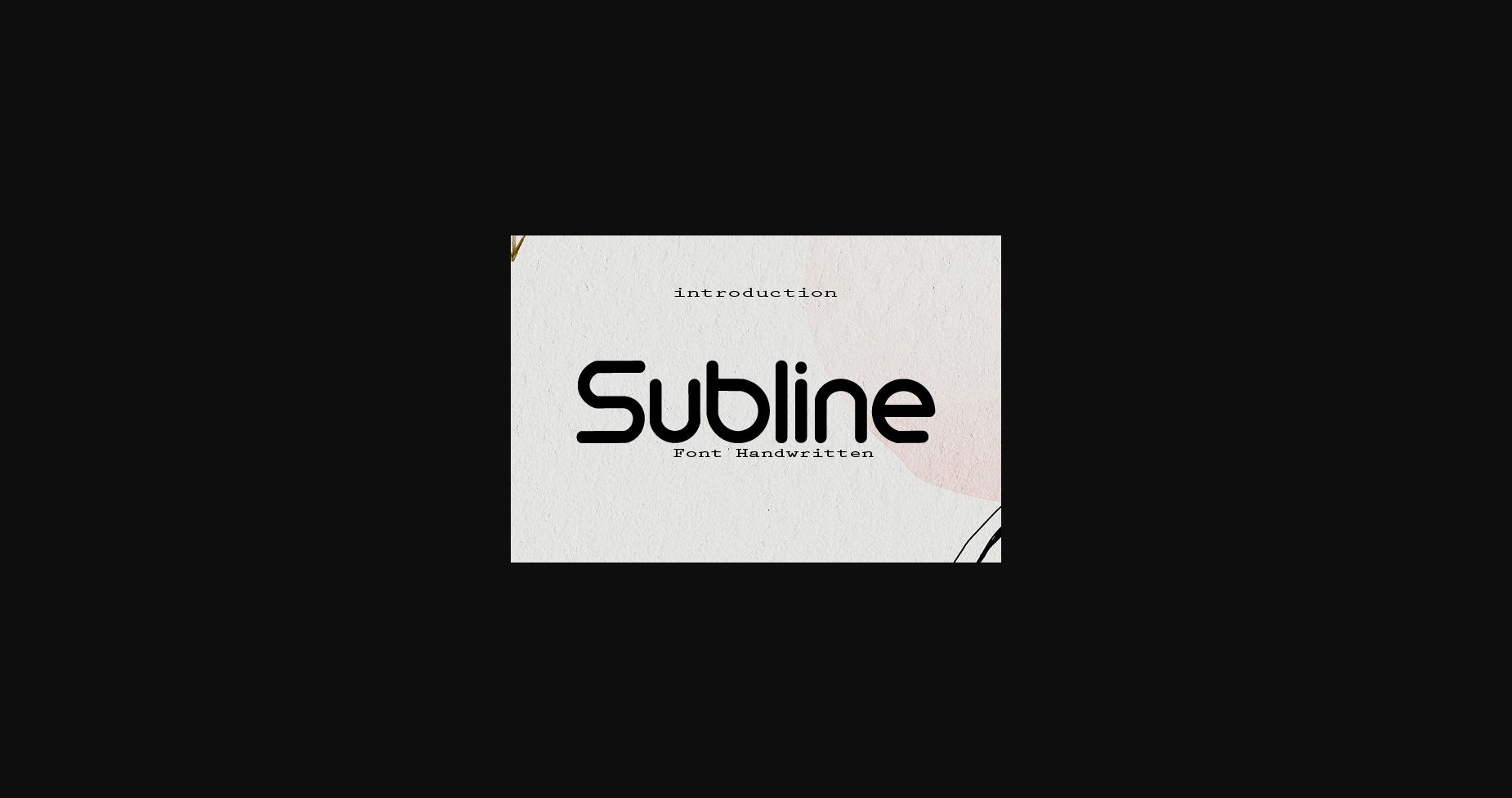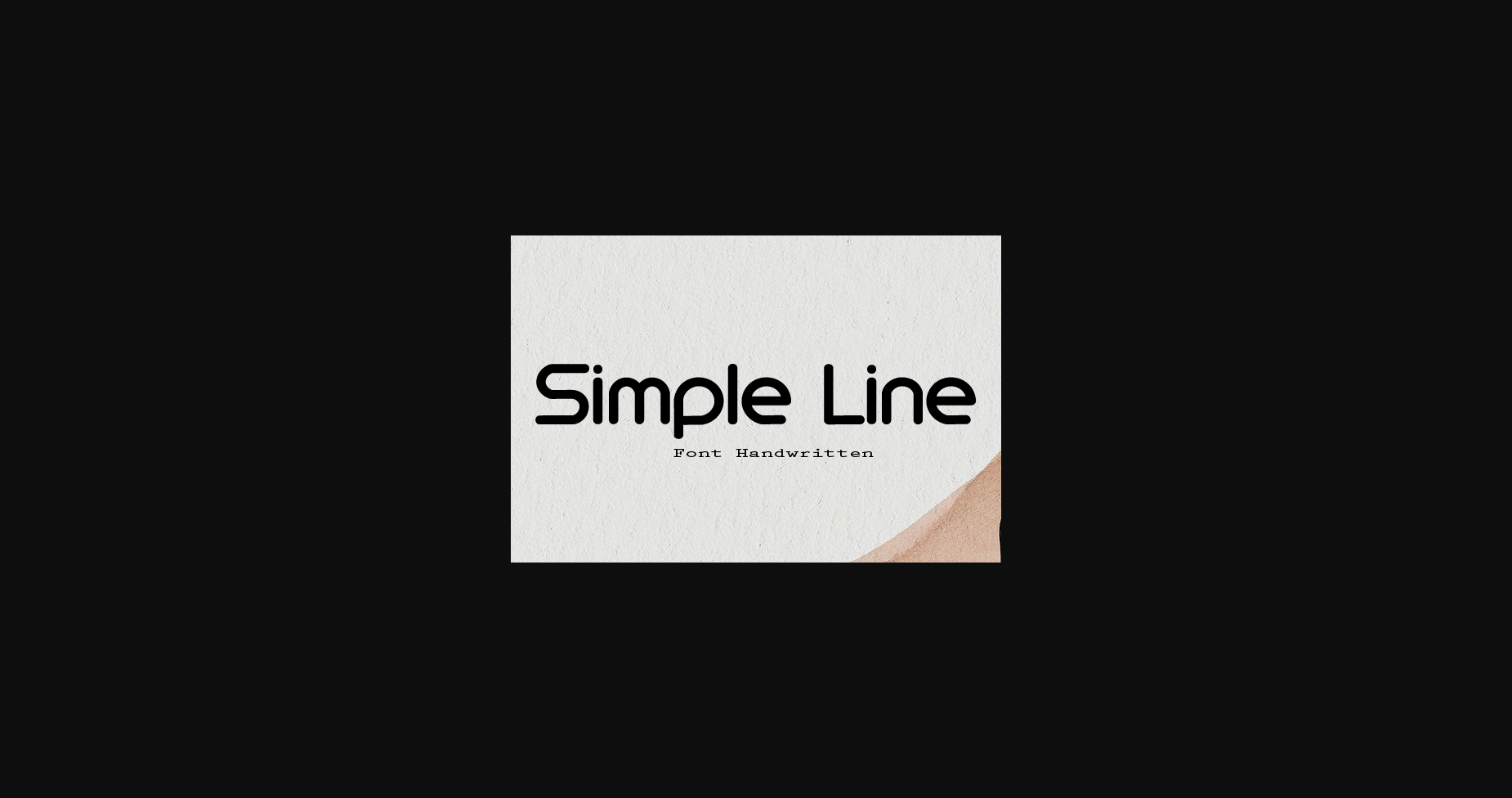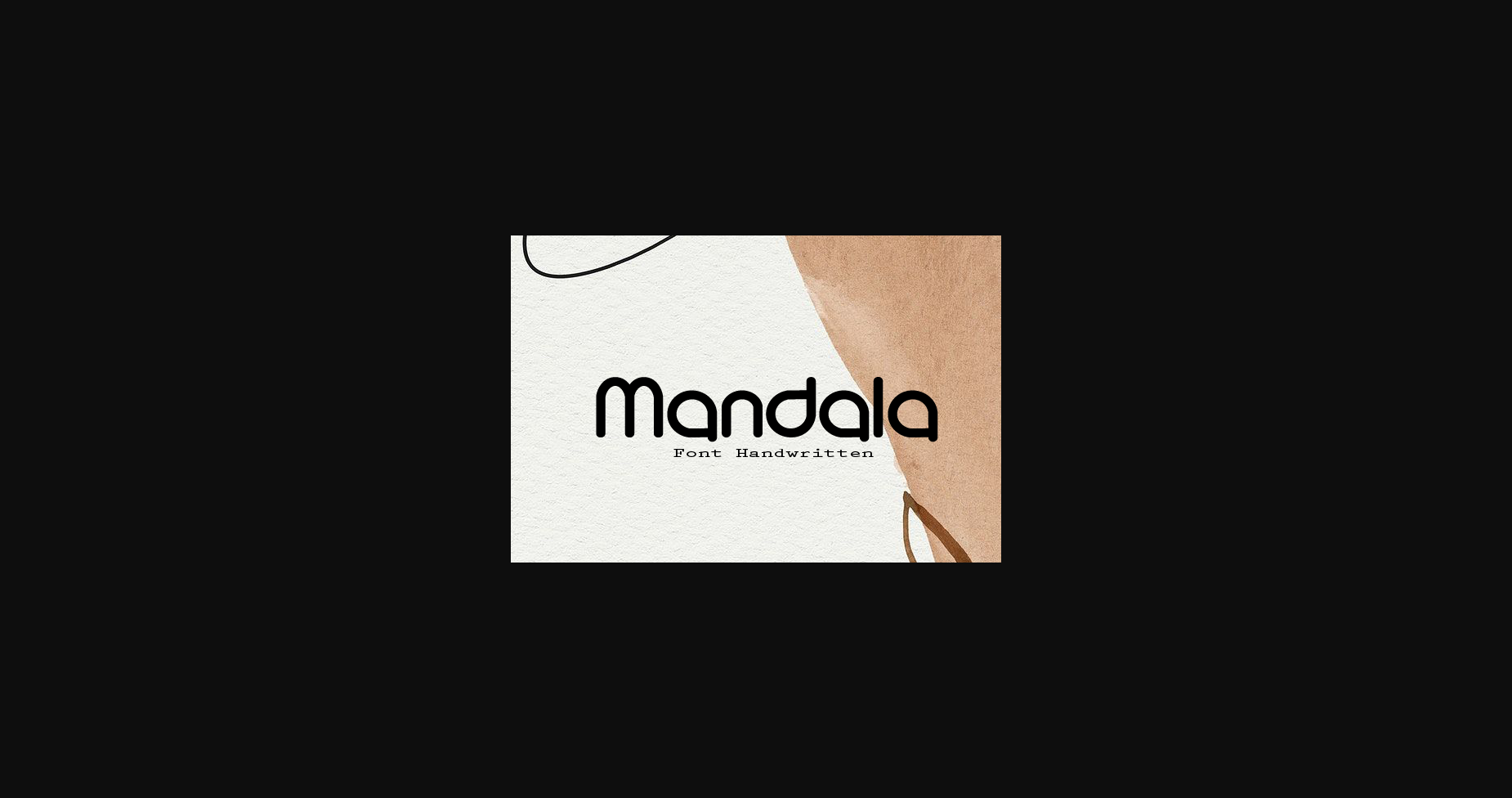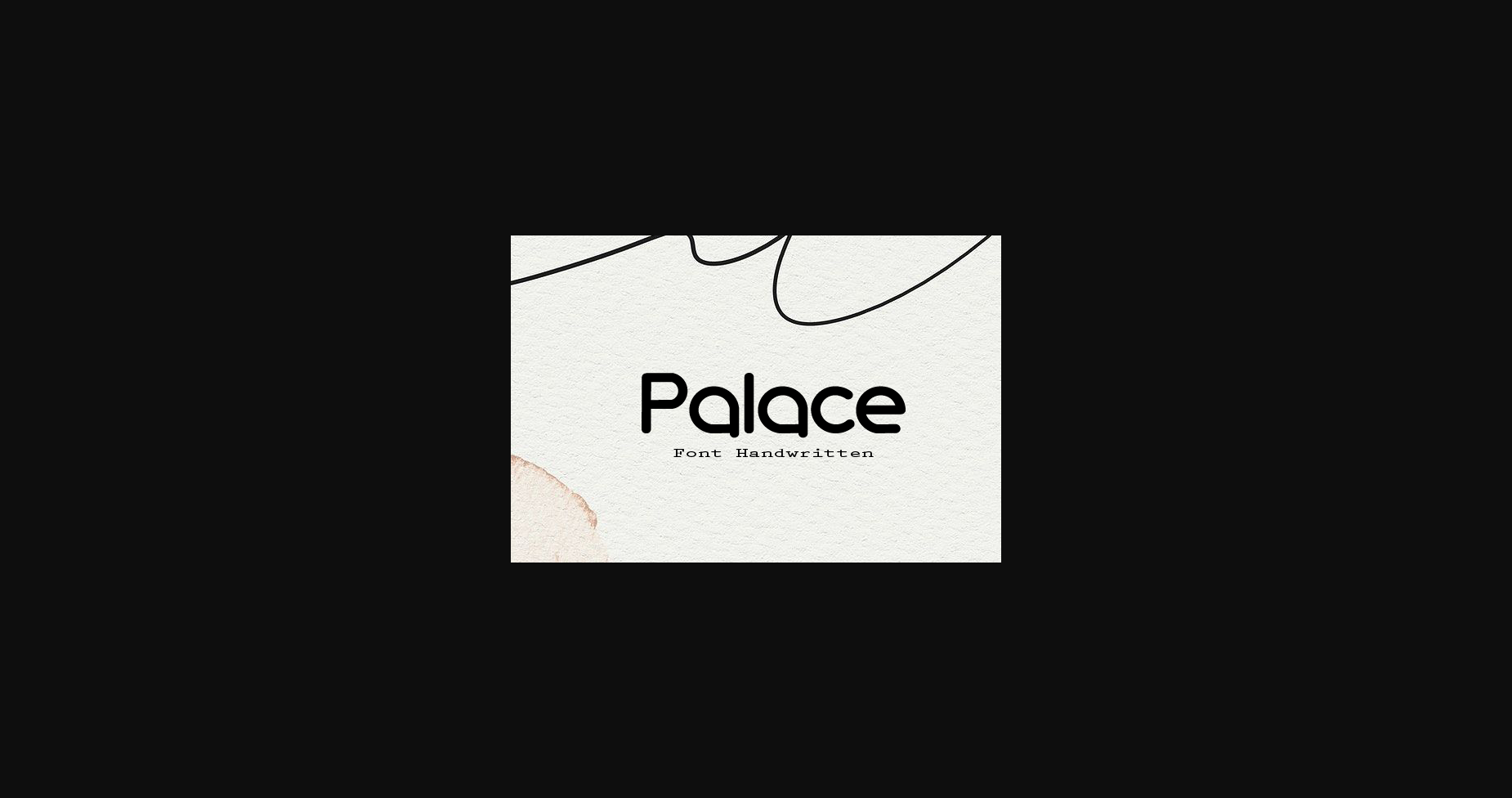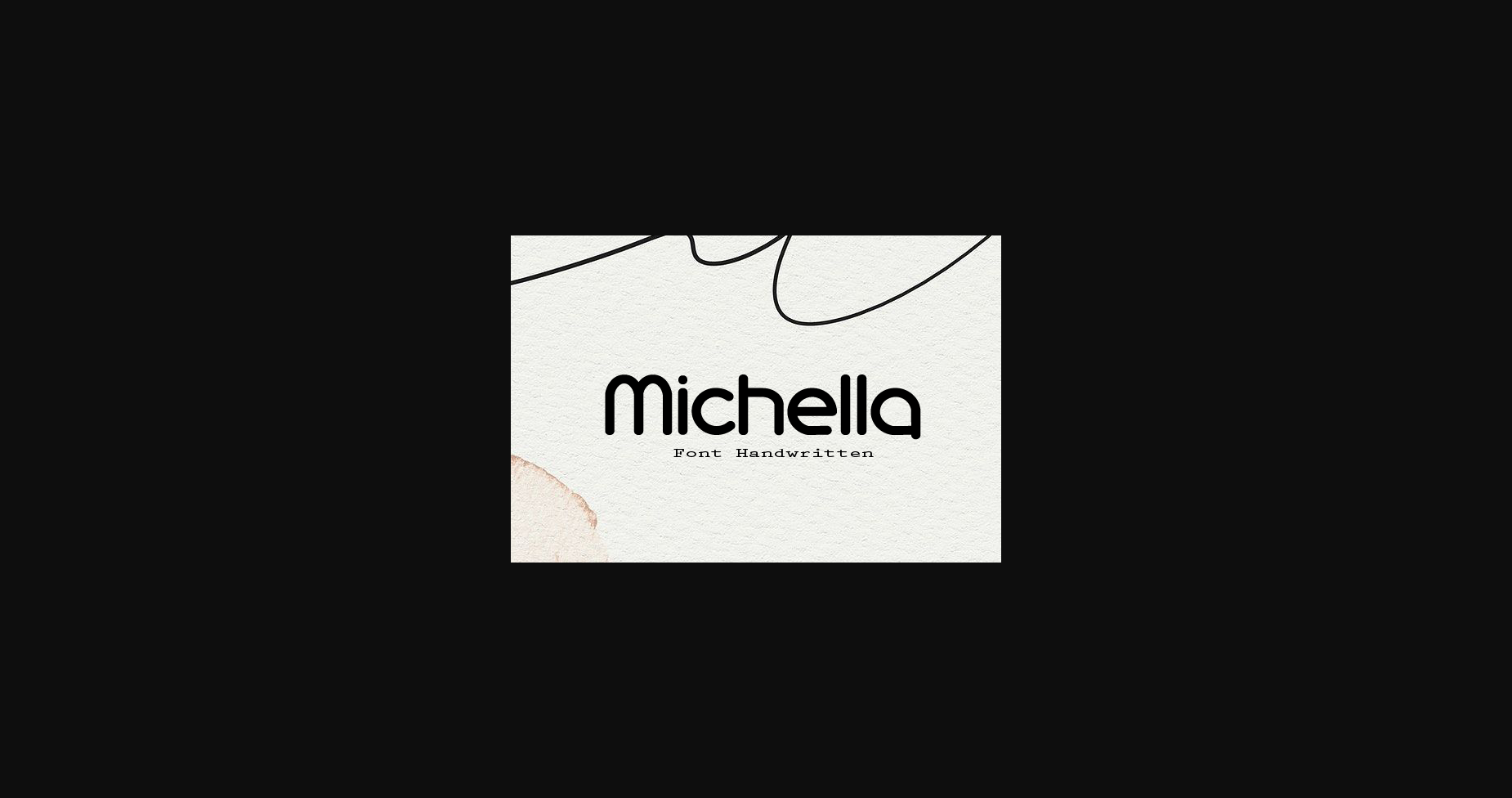
HomeSans Serif FontsSubline Font Sans Serif Fonts Subline Font FacebookXPinterestWhatsApp 1 of 7 ... Subline Font Poster 2... Subline Font Poster 3... Subline Font Poster 4... Subline Font Poster 5... Subline Font Poster 6... Subline Font Poster 7... About Subline Font Subline is a simple and modern sans serif font. This clean font has a wide spectrum of applications ranging from greeting cards to headlines and is guaranteed to add a cool feel to your next project. DOWNLOAD NOW People also explored Allacarte Font Daylight Font Buny Huny Font Orange Font Red Ribbory Font Bame Font Nian Chinese Monogram Font Simple Font Derby Font 479 0 TagsSublineSubline Font Previous articleStarlin FontNext articleEaster Bunny Font LEAVE A REPLY Cancel reply Comment: Please enter your comment! Name:* Please enter your name here Email:* You have entered an incorrect email address! Please enter your email address here Website: Save my name, email, and website in this browser for the next time I comment. Personal Use Free Quickline Personal Use Free Read more about this font Vilsuve Personal Use Free Read more about this font Colombia Personal Use Free Read more about this font BD Lofi Personal Use Free Read more about this font BLOG How to Install and Use Fonts on Windows, macOS, and Web Projects How to Install and Use Fonts on Windows, macOS, and Web Projects Fonts are a crucial part of design and branding. Whether you’re designing a... The 10 Best Handwriting Fonts to Add Personality to Your Designs Free Fonts Risk: Why Free Fonts Can Be Dangerous for Designers Best Fonts for T-Shirt Design – Top 2025 Picks